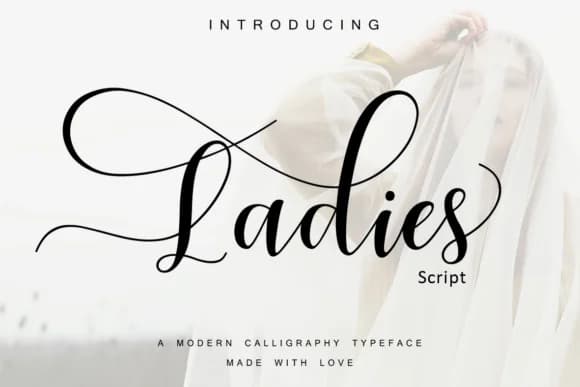
Ladies by Moly Mol is an elegant flowing script specifically designed to bring sophisticated flair to your most important moments and creative projects. With its generous flourishes and multiple stylistic alternates, this typeface adapts beautifully to different design applications while maintaining its graceful, refined character throughout every use.
This ornate script truly excels when used for wedding invitation suites, where its delicate letterforms and flowing swashes create an unmistakable impression of luxury and thoughtful detail. It's equally well-suited for bridesmaid proposal cards, personalized stationery collections, and luxury beauty brand identities that demand a distinctly feminine, upscale aesthetic. The extensive variety of alternate characters ensures that each application feels individually tailored and authentic rather than mass-produced or generic. Beyond formal occasions, Ladies works beautifully for jewelry brand packaging, engagement announcement designs, bridal event materials, and sophisticated cosmetics branding that conveys elegance and intentionality to a discerning audience.
Ladies Font is a script font that shines as a display or heading face. Pair it with a clean sans-serif or serif font for body text β the contrast creates a clear hierarchy while the two styles stay balanced and easy to read.
Ladies Font
by Moly Mol